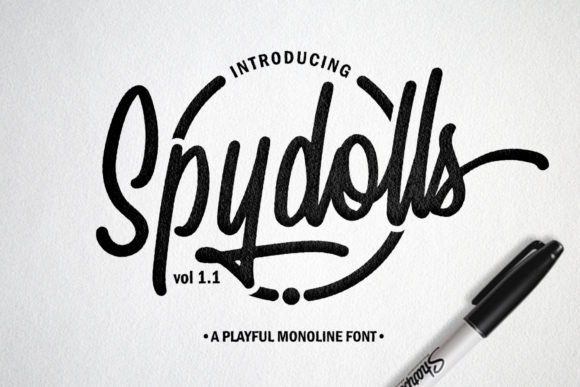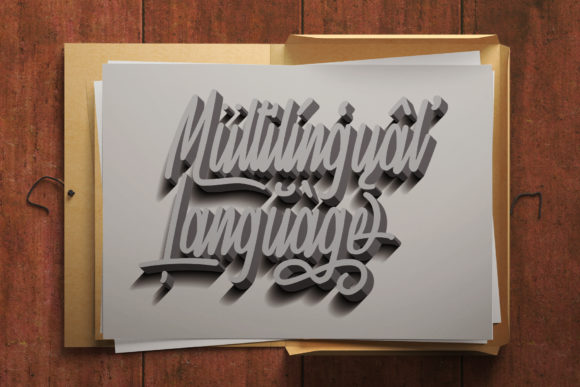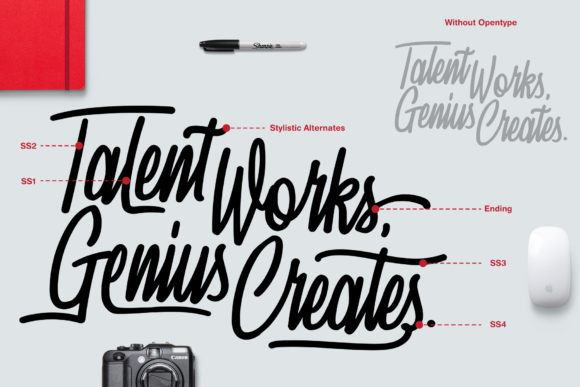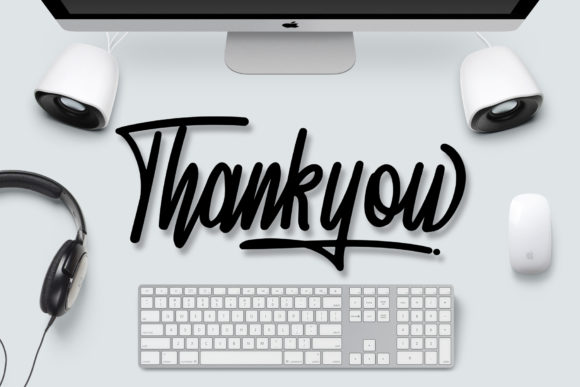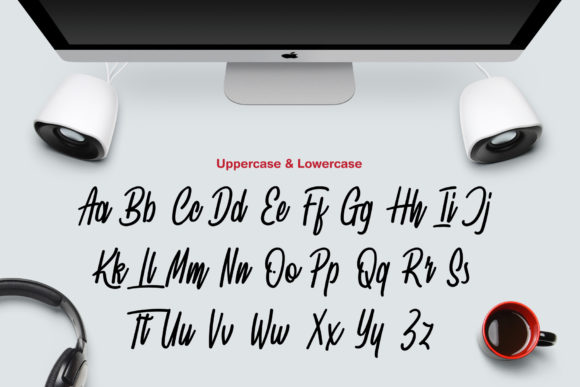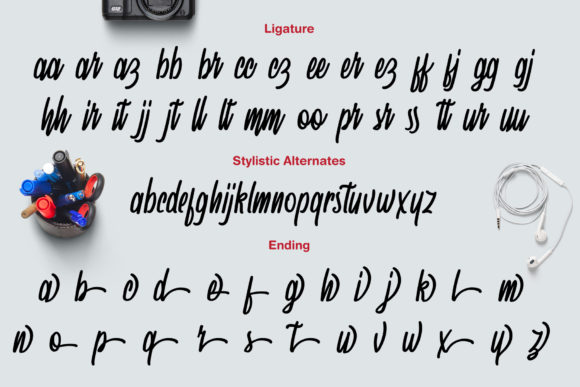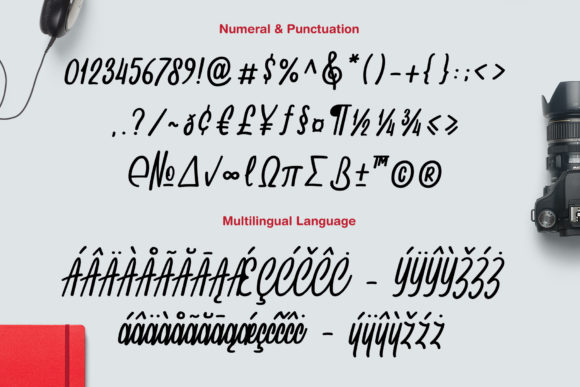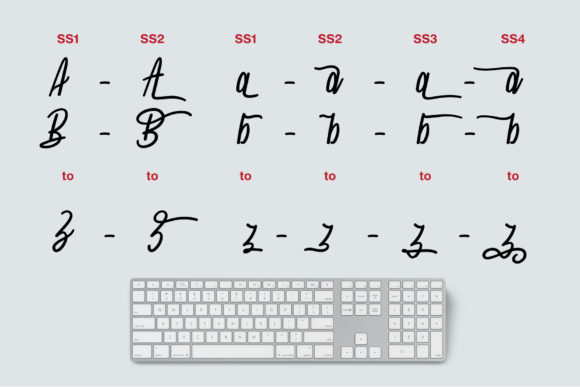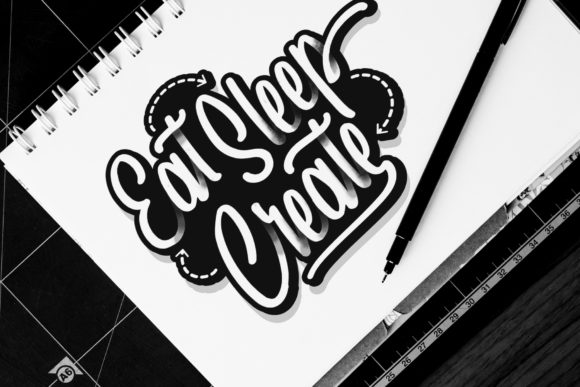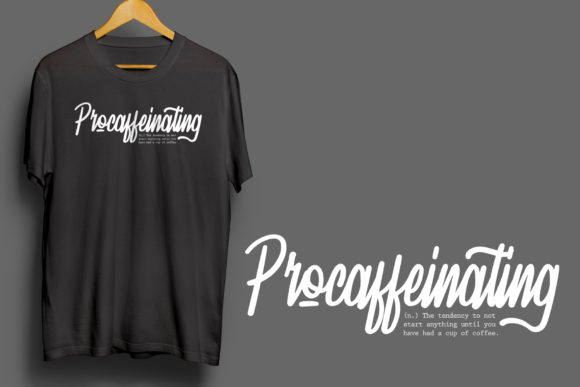
Spydolls Font
About Spydolls Font
The Spydolls is a playful monoline script. It was inspired by a marker pen, and is perfect for logos, t-shirts, branding, prints, and much more!